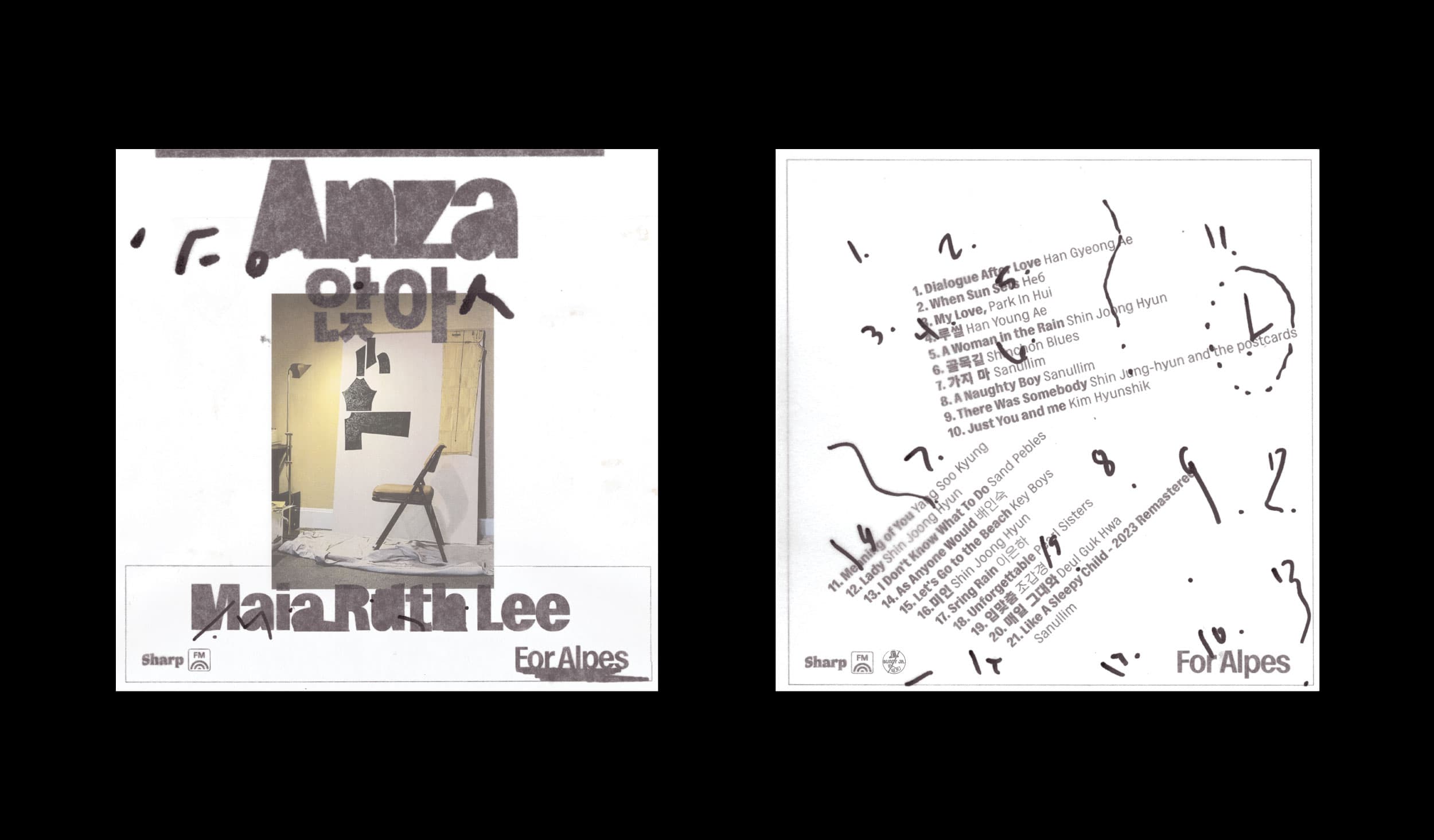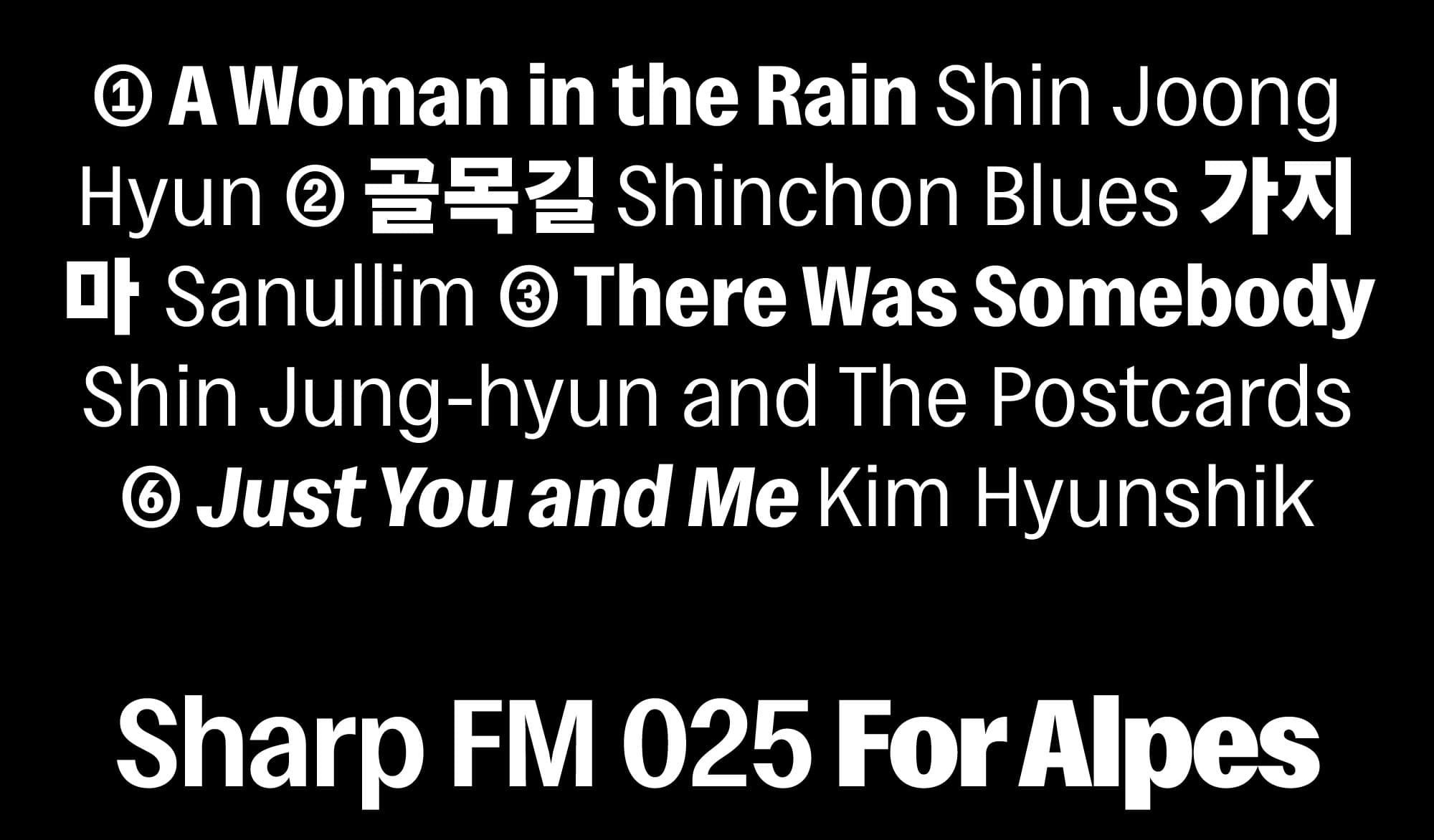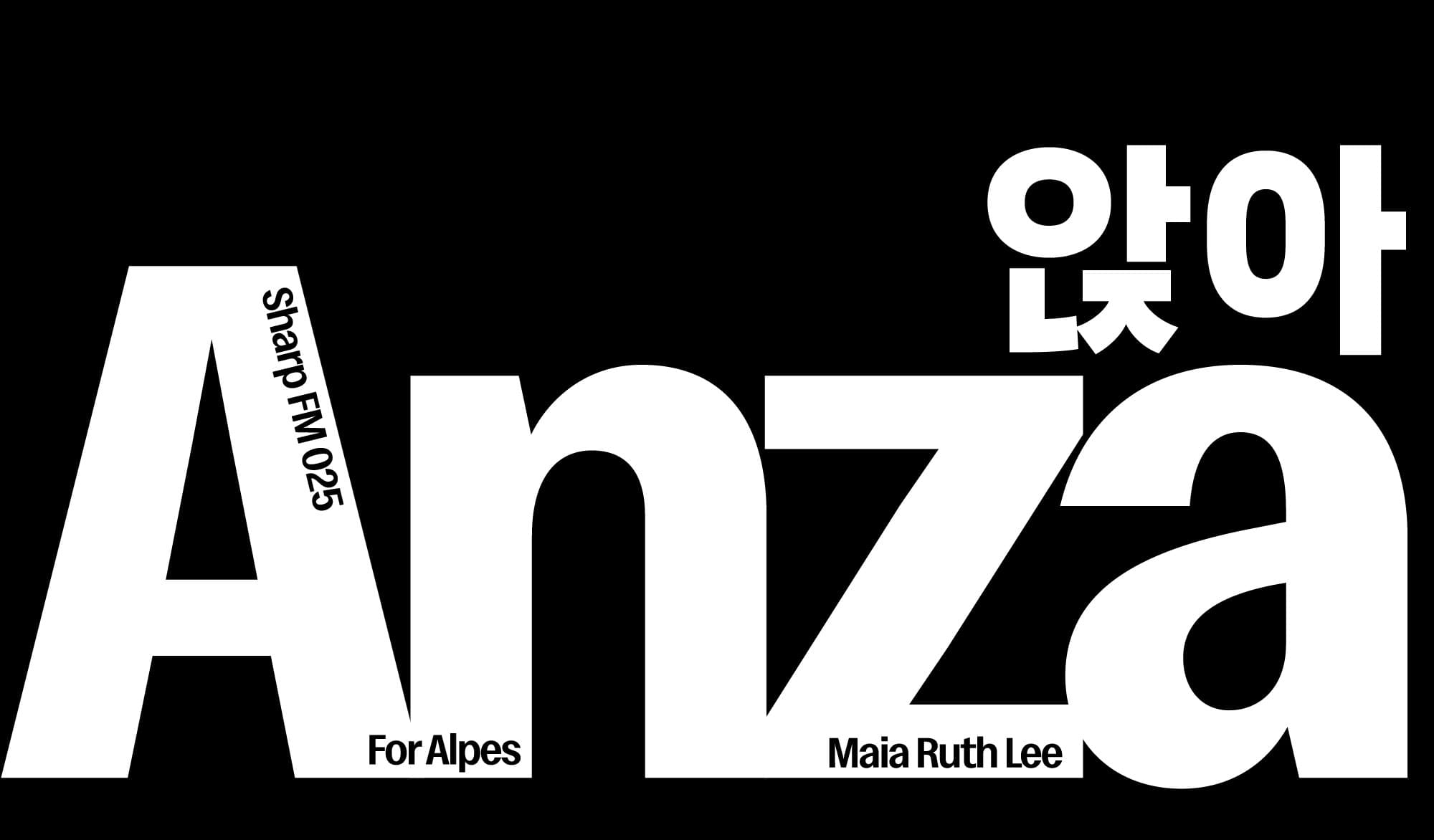
Sharp FM 025: Maia Ruth Lee for Alpes
Our first mix of 2026 comes courtesy of artist Maia Ruth Lee. Currently based in San Francisco, we know Maia from our shared past in New York City, where she was a vibrant presence in the downtown art community. Born in Busan, and having lived between Nepal and Korea and now in the U.S. Maia's work explores the evolving shape of language, memory, and identity within the context of migration, diaspora, and personal mythology.
Photo by Maia Ruth Lee.
Her mix for Sharp FM, titled Anza, is a colorful compilation of gayo, the precursor to K-pop. “Anza is the street I recently moved to, and it just happens to sound like the Korean word for ‘sit down,’” says Maia. ““I first fell into Korean psych-rock and gayo during my undergrad years in Seoul, thanks to my friend Jaewon, who wrote a column called ‘환상인-가요’ (“Fantasy Song”) about Korean 60s/70s music for 칠진, a zine we published as an artist collective.
Maia’s wall installation of handmade glyphs titled LABYRINTH from 2019 Whitney Biennial.
“One of my favorite musicians, Shin Joong Hyun—the godfather of Korean rock—runs like a thread throughout this mix. A visionary guitarist and prolific producer, his sound shaped the era and launched artists like Kim Jung Mi and the Pearl Sisters. His influence runs deep—part musical genius, part cultural myth. His restless experimental spirit pulses through the tracks.
“In 60s and 70s Korea, a lot of Western pop and rock songs—Beatles hits, surf rock, Motown, psychedelic jams—were often reborn with Korean lyrics. Melodies stayed, words changed, and the music, often unlicensed, gave birth to something entirely new. Many of these tracks survived only through bootlegs and collector tapes, hovering between homage and adaptation.”
Alpes by Image Format + Sharp Grotesk Korean
This liminality succinctly defines Alpes, our newest typeface collaboratively released in sans and mono styles with Image Format. Today, the album cover format must nimbly scale from digital thumbnail to physical vinyl jacket (and often even larger), and it was an apt testing space for this high-contrast grotesk, with Maia’s full name allowing its condensed proportions to shine even within a compact frame.
Gayo, Maia’s first cassette release with Bunny Jr. Tapes from 2018.
The timing of this mix is serendipitous, too. In March of 2018, Maia released her first mix on cassette through Bunny Jr. Tapes, a music label established by fellow artist Jezenia Romero. Exactly seven years later, it felt fitting to ask Jezenia to collaborate on a very limited run of cassettes of Anza, which includes a special track exclusive to the physical release. Pre-orders of Anza are available now through Bunny Jr. Tapes and will ship at the end of the month.
One of my favorite musicians, Shin Joong Hyun—the godfather of Korean rock—runs like a thread throughout this mix.